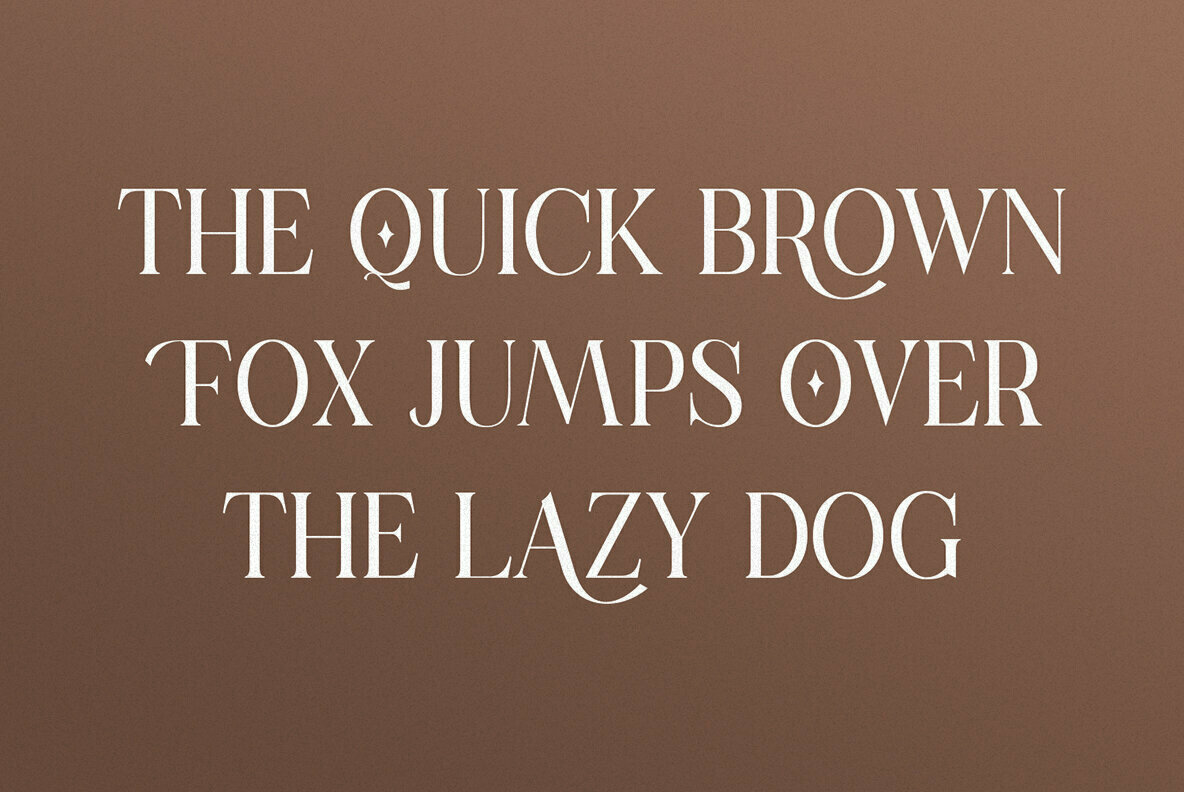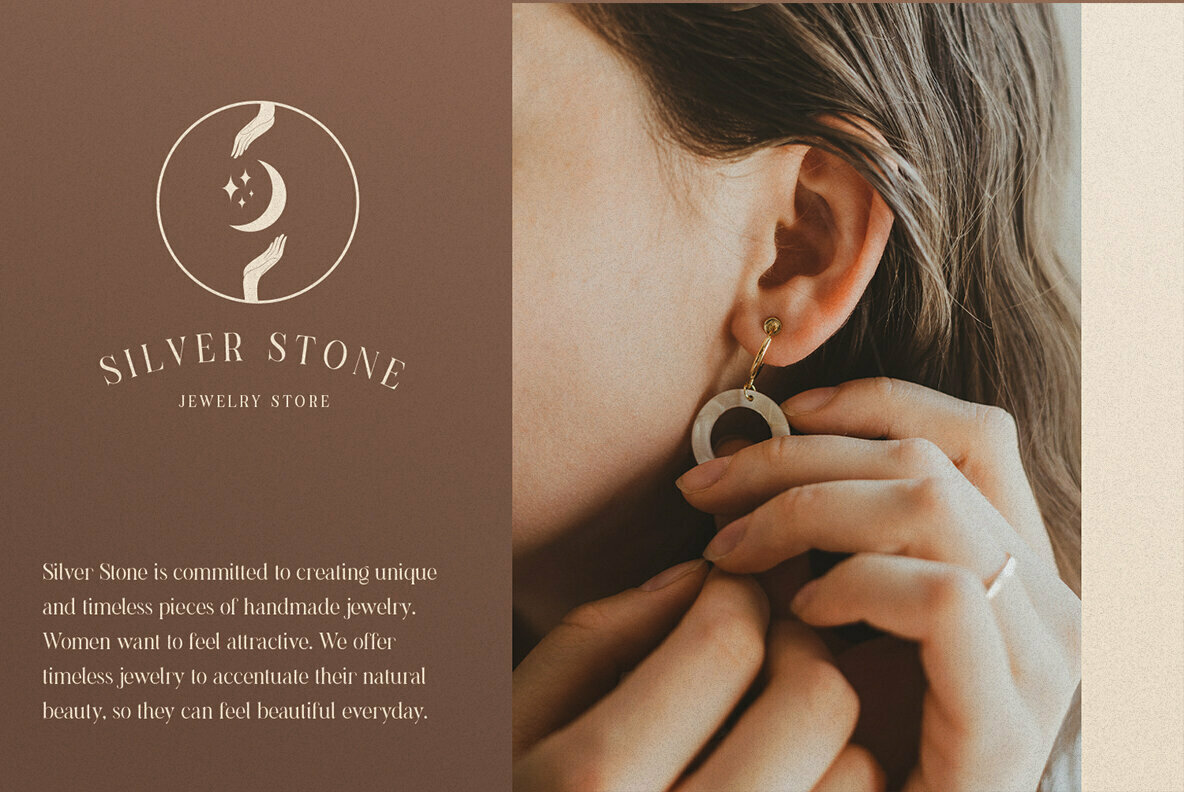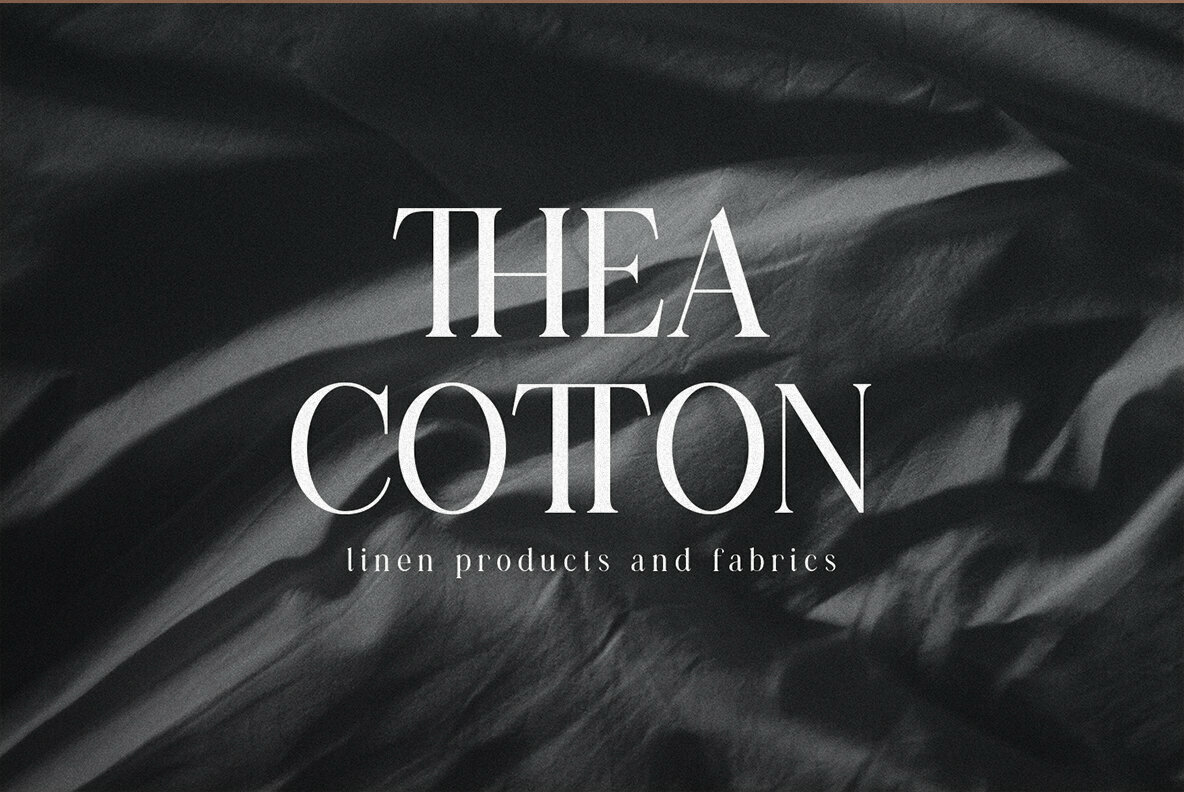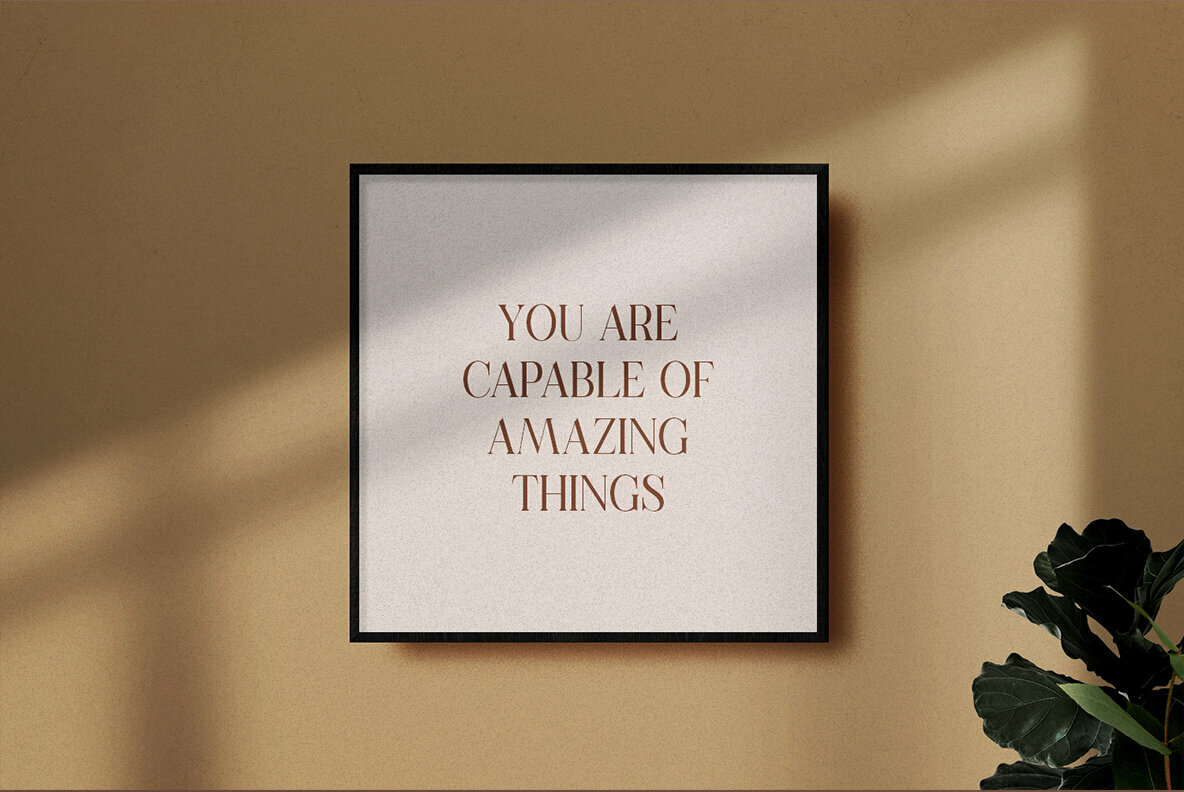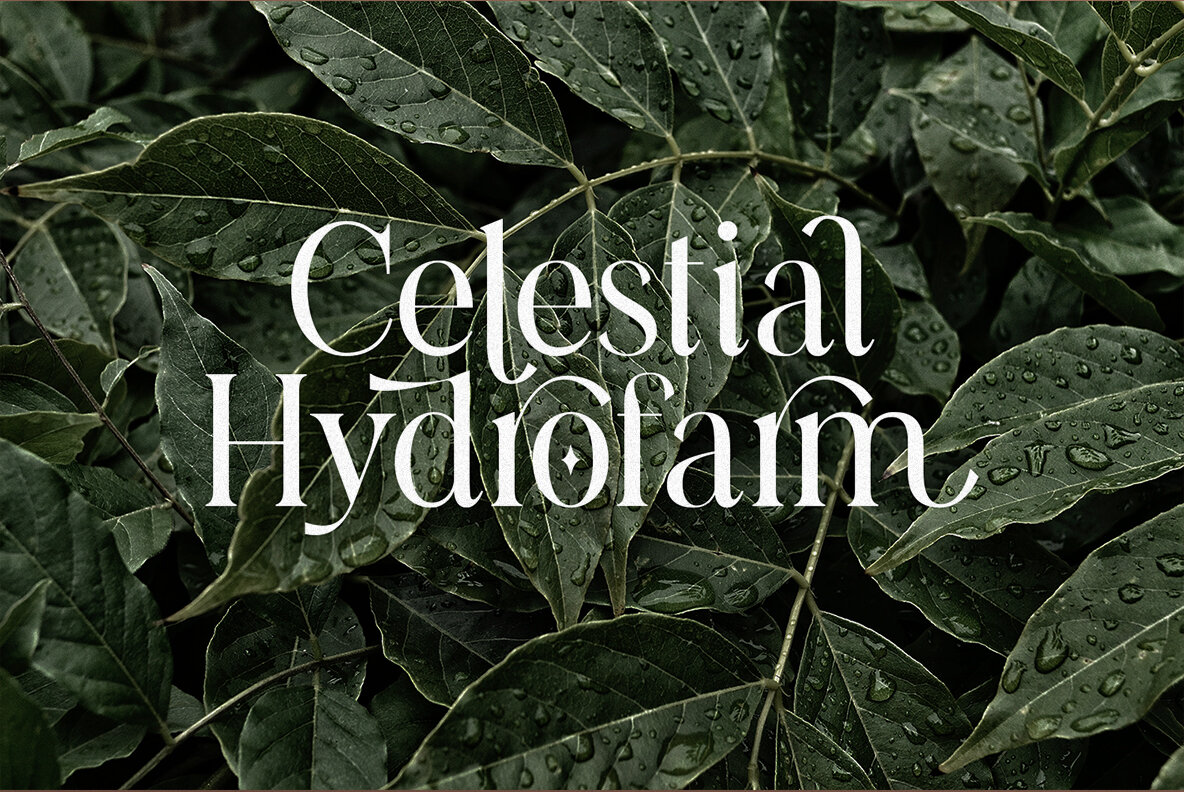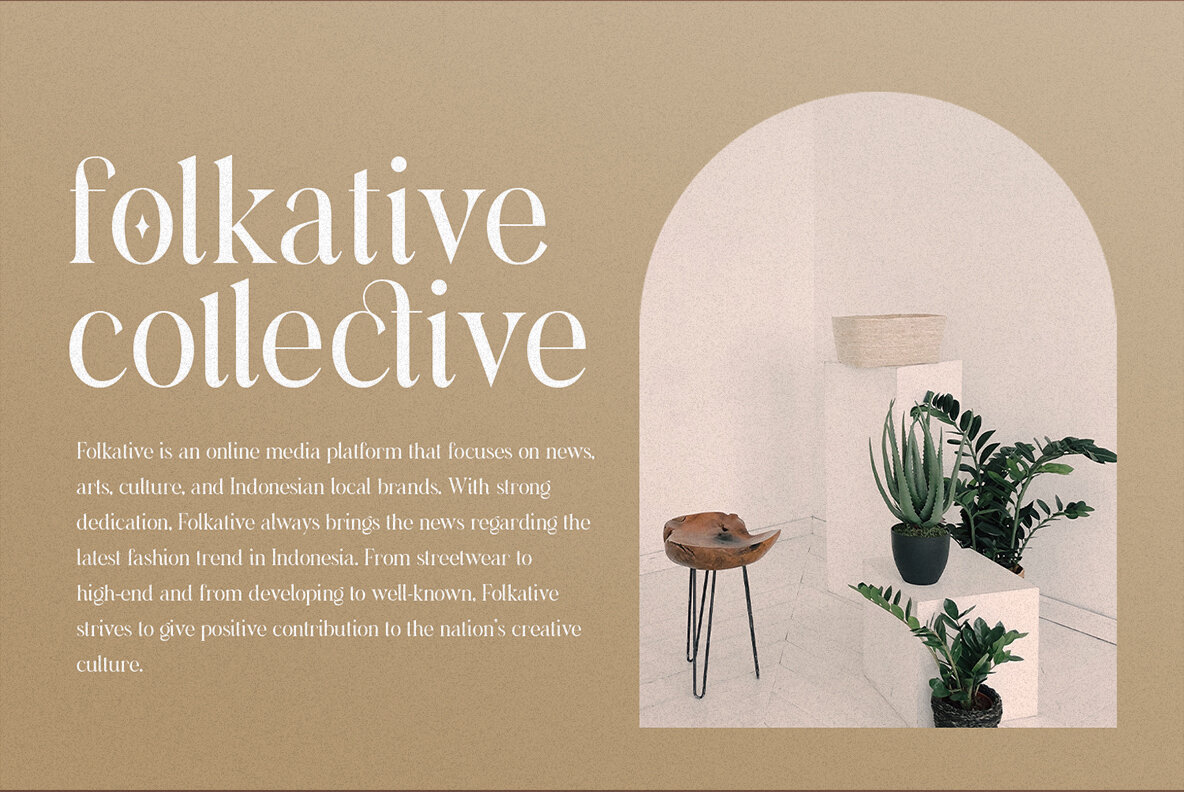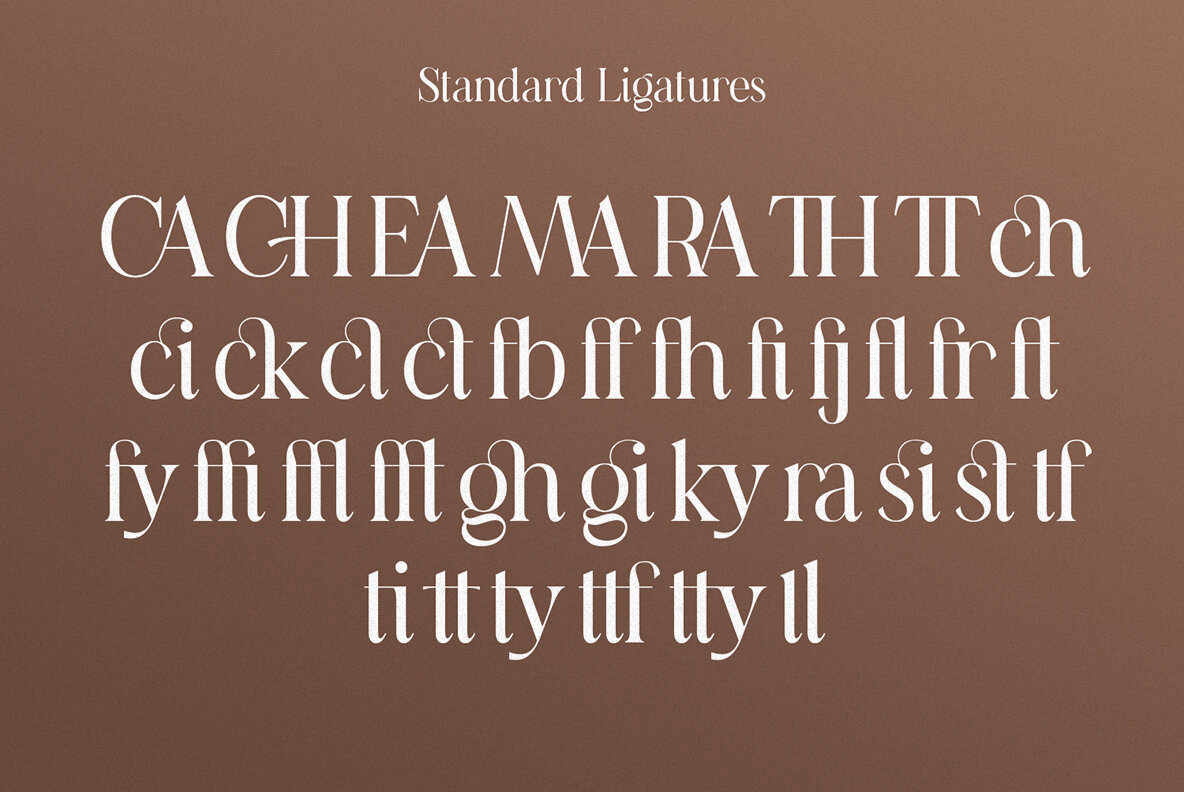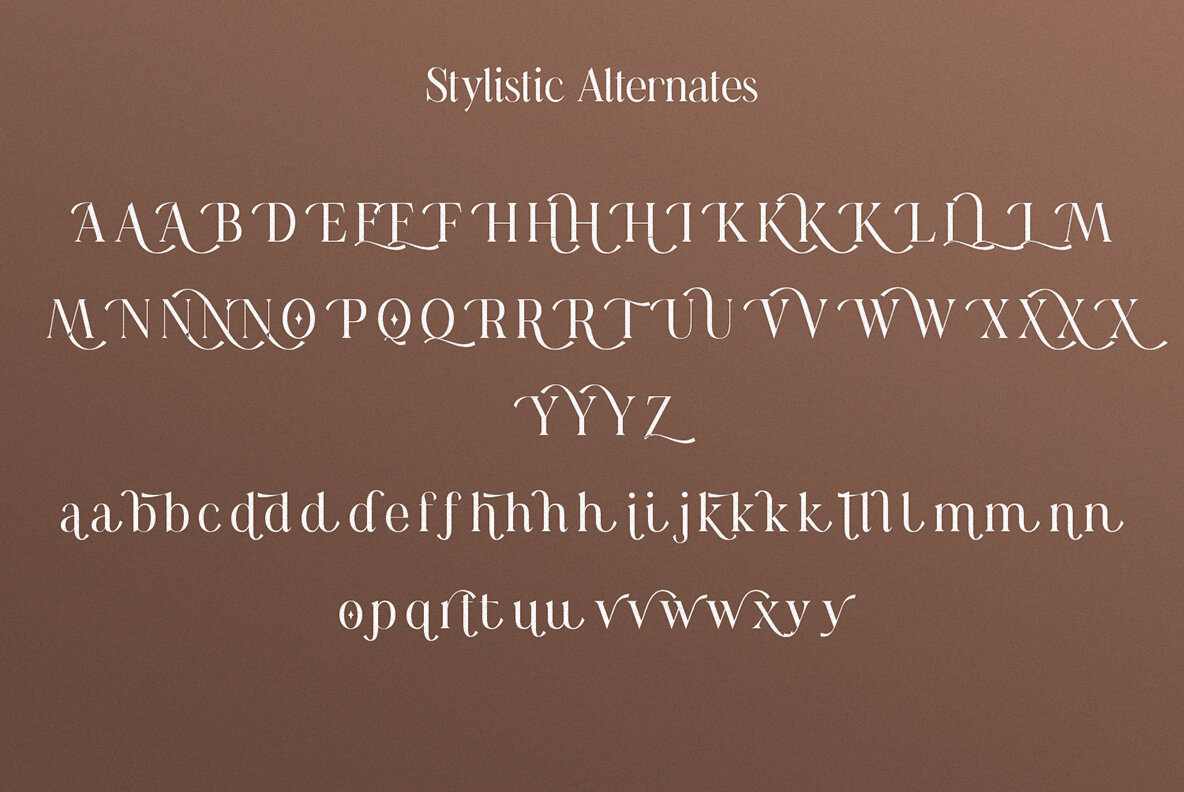
Casanova Serif Display a modern-style serif font with alternatives and ligatures that create stunning logos, quotes, posts, blog posts. branding projects, magazine imagery, wedding invitations, and much more.